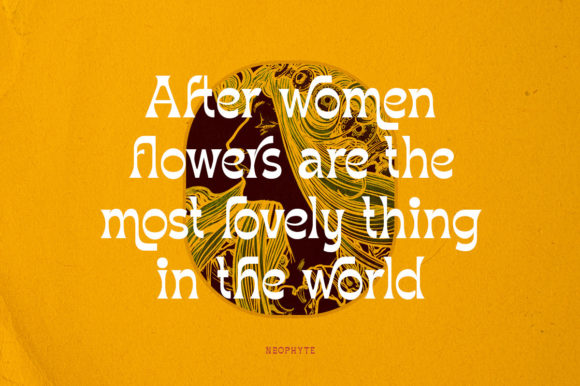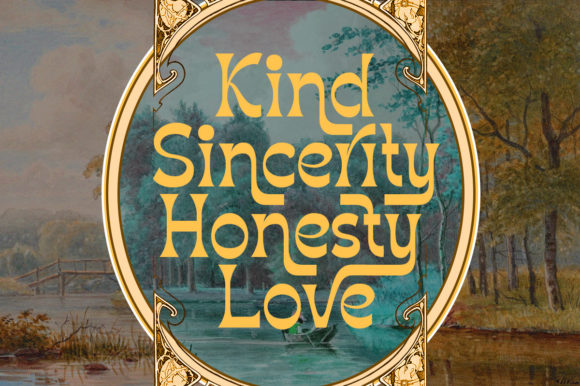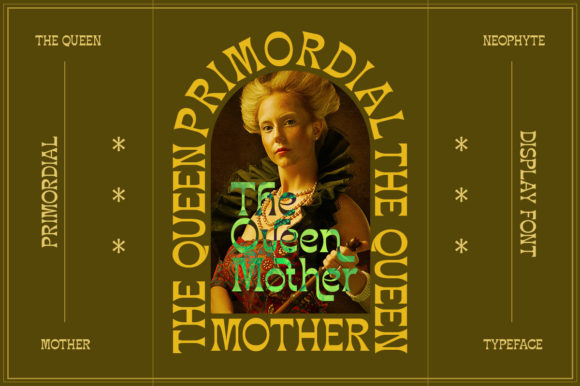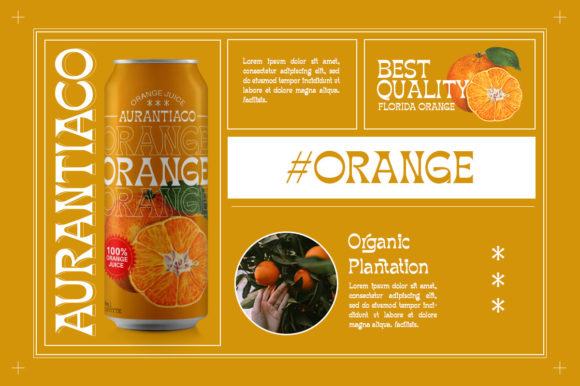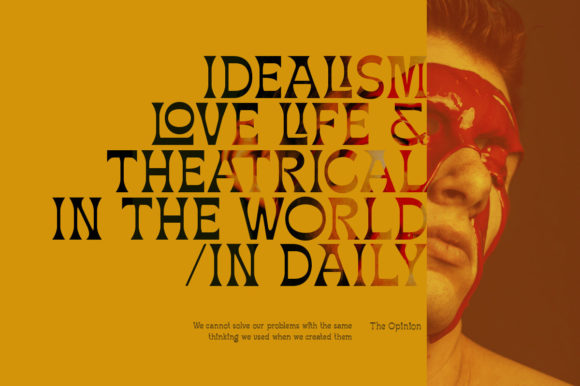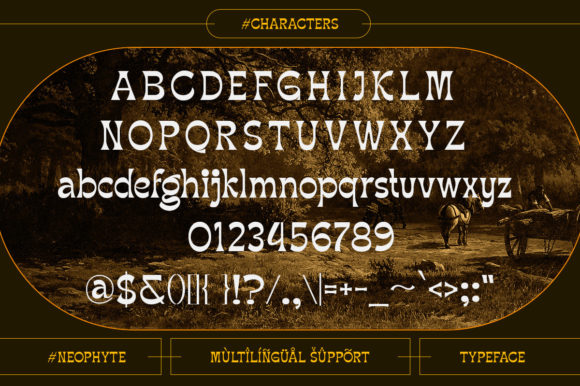
Introduction to Neophyte Font
Have you ever been working on a creative project, pouring your heart and soul into every detail, only to realize that something is missing – a certain je ne sais quoi that elevates it to the next level? For designers, this feeling is all too familiar. It’s the moment when the perfect font can make all the difference, transforming a good design into a great one. This is where the Neophyte Font comes in – a high-quality, vintage-styled display font that’s sure to be a valuable addition to any designer’s library.
With its cool, retro aesthetic, the Neophyte Font is the perfect design resource for anyone looking to add a touch of sophistication and elegance to their creative project. Whether you’re working on a digital design, a print project, or even a social media campaign, this font is sure to be a game-changer. And the best part? It’s available for free download, making it a transparent background for your imagination to shine through.
Key Features of Neophyte Font
- High-quality design resource ideal for creative projects, including graphic design, digital art, and web development.
- Unique, modern design that sets it apart from other fonts, perfect for adding a touch of sophistication to creative projects.
Honest Review: Neophyte Font
I recently stumbled upon the Neophyte Font, a design resource that has been gaining traction among creatives. Upon closer inspection, I was impressed by its high quality and versatility.
What works well: ✨ The font’s sleek and modern aesthetic makes it perfect for a variety of creative projects, from digital art to graphic design. The transparent background allows for seamless integration into different designs, giving you full control over the composition.
Some notable features include:
- High-quality vector graphics
- Flexible and modern design
However, I did encounter a few limitations: ⚠️ The font is limited to a specific set of characters, which might not be ideal for complex or lengthy text-based projects. Additionally, the free download version has some restrictions on commercial use.
Overall, I’m impressed by the Neophyte Font’s potential as a design resource. While it may have some limitations, its high quality and modern aesthetic make it a great choice for creative projects. With a little creativity and planning, you can unlock its full potential and produce stunning designs.
How to Use Neophyte Font
The Neophyte Font is a high-quality design resource ideal for creative projects. Its unique style and transparent background make it a versatile tool for various applications.
Tips for Getting the Most Out of Neophyte Font
Experiment with different font sizes, colors, and combinations to achieve the desired effect.
The Neophyte Font is suitable for various creative projects, including:
- Branding
- Print materials